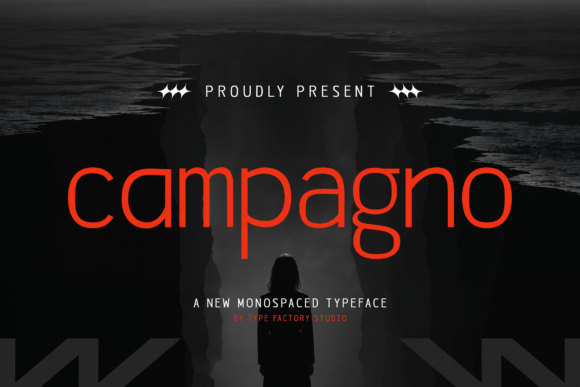
What is Campagno Font?
Campagno Font is a monospaced sans serif typeface built with consistent character width and balanced geometric structure. Each letterform follows a fixed horizontal spacing system, creating a structured and rhythmic typographic appearance. The clean strokes and simplified forms make it suitable for a wide range of applications, from coding interfaces and tech branding to editorial layouts, poster design, digital campaigns, and UI presentations.
- ✨ Consistent character width: The monospaced construction ensures alignment precision and clarity across uppercase, lowercase, and numeric characters.
- ✅ Multilingual support: Campagno Font includes a wide range of languages, making it a great choice for global brands and projects.
- 💻 Coding-friendly: The font’s clean strokes and simplified forms make it perfect for coding interfaces and tech-related projects.
- 🎨 Creative flexibility: With alternates, ligatures, and stylistic sets, Campagno Font offers a high degree of customization.
- 🤔 Limited expressiveness: While Campagno Font is great for tech and coding-related projects, it may not be the best choice for more creative or artistic endeavors.
- ⚠️ Can be overwhelming in large blocks of text: The font’s monospaced construction can make it difficult to read in large blocks of text.
The Designer Behind Campagno Font
Campagno Font was designed with the goal of creating a clean, modern typeface that would meet the needs of tech-savvy audiences. The designer’s inspiration came from the world of coding and programming, where clear and legible typography is essential. The result is a font that is both functional and beautiful, making it perfect for a wide range of applications.
| Font Name | Campagno Font |
| Author | TypeFactory |
Q: What is the x-height of Campagno Font?
A: The x-height of Campagno Font is 0.5, making it easy to read and legible.
Q: Is Campagno Font suitable for body text?
A: While Campagno Font can be used for body text, it may not be the best choice for large blocks of text due to its monospaced construction.
Q: Does Campagno Font support non-English languages?
A: Yes, Campagno Font includes multilingual support, making it a great choice for global brands and projects.